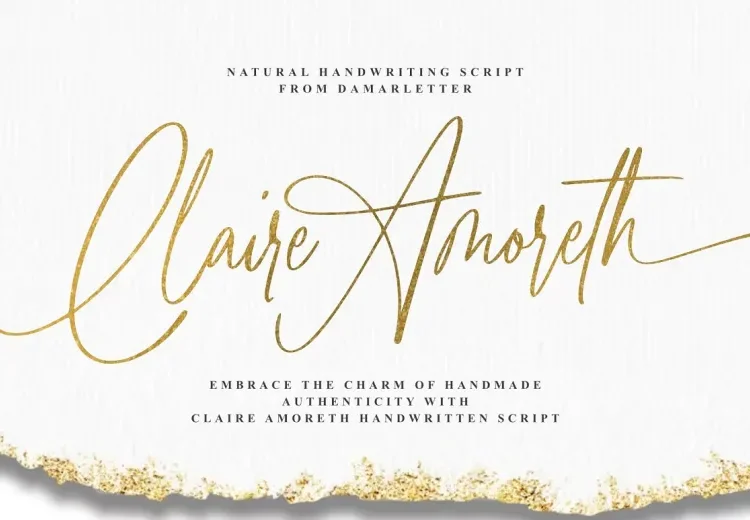
Claire Amoreth Font
Claire Amoreth is an exquisite handwritten script font that beautifully captures the charm and fluidity of natural, free-flowing script. With its graceful curves and organic lines, Claire Amoreth brings a unique and individual style to your designs, making it the perfect choice for projects that require a blend of elegance and casual glamour. Whether you’re designing wedding invitations, crafting sentimental notes, or creating logos for brands, Claire Amoreth provides a warm and personalized touch that is typically associated with the beauty of handwritten designs.
The calligraphic design of Claire Amoreth exudes elegant simplicity and sophistication, making it suitable for a wide range of purposes. Each character in this font is a miniature masterpiece, translating into a coherent script that elevates the visual appeal of your work. The delicate and fluid nature of Claire Amoreth creates a harmonious balance between handcrafted authenticity and timeless elegance.